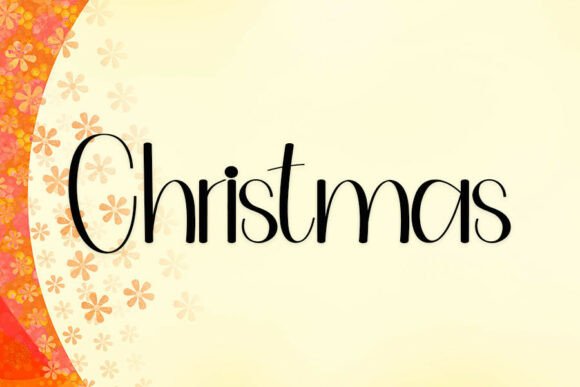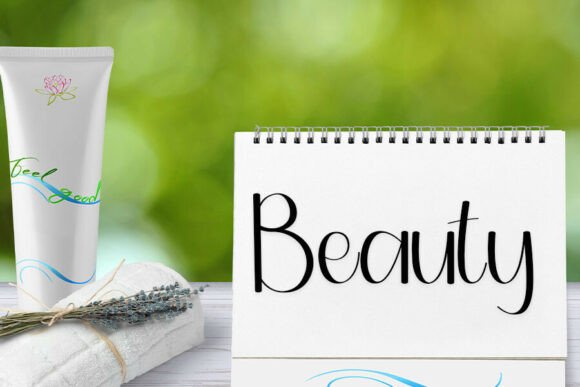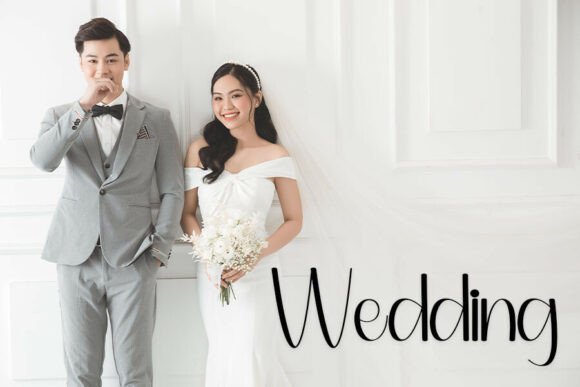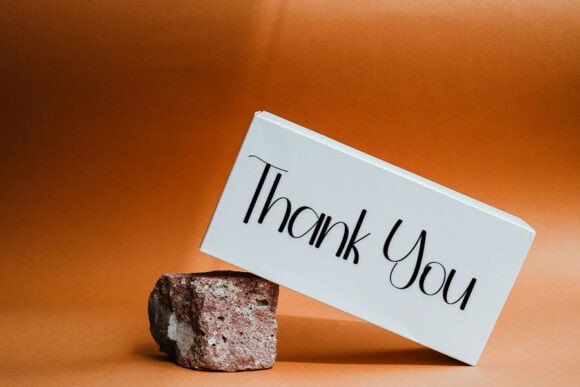
Discover the Magic of Designer Font
There’s nothing quite like the thrill of creating something from scratch – the blank page, the endless possibilities, the rush of excitement as your ideas start to take shape. And for designers, that moment is all too familiar. You’re brainstorming, sketching, and experimenting with different styles until you land on the perfect look. But what if you could elevate your design game with a single, elegant touch?
Enter the Designer Font, a sweet and cursive handwritten font that’s sure to add a touch of joy and romance to your projects. Whether you’re working on a branding campaign, designing wedding invitations, or creating a fashion lookbook, this versatile font is the perfect companion. With its casual yet sophisticated vibe, the Designer Font is a valuable addition to any designer’s toolkit.
Designer Font Key Features
- Unique Characteristics: Unique ligatures, swashes, and flourishes add a touch of elegance and sophistication to text, making it perfect for high-end branding and design projects.
Designer Font Review
Overall, I’m impressed with the potential of Designer Font. It’s clear that the creators put a lot of thought into its design and functionality. ✨ Here are some of the things that stand out to me:
- Unique character set: The font has a distinctive, hand-drawn feel that sets it apart from more generic fonts.
- High customization options: The font can be easily customized to fit a wide range of design needs, from small text to large headings.
However, there are a few limitations that I’ve encountered:
- Limited language support: While the font is well-suited for English, it may not be as effective for languages with more complex character sets.
Overall, I think Designer Font has a lot to offer, but it may not be the best choice for every project. With a bit of tweaking and customization, it can be a great addition to any designer’s toolkit. ⚠️
The Designer Font is perfect for:
- Creating eye-catching headings and titles.
- Designing custom typography for logos and branding.
- Adding a professional touch to presentations and documents.